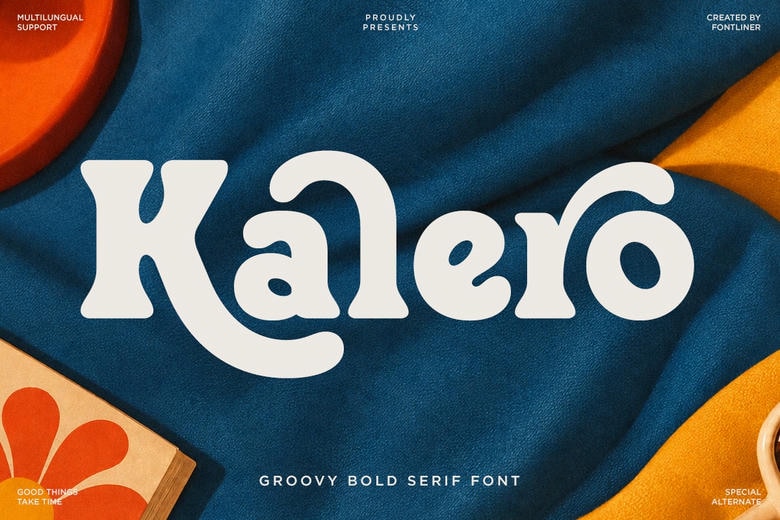
Kalero Font
Kalero is a bold retro serif font with a playful, nostalgic feel that brings personality to modern creative projects. Its chunky letters, smooth curves, and unique serifs give it a vintage style, while still keeping it bold, friendly, and easy to read.
Kalero is great for retro branding, vintage posters, packaging, lifestyle brands, food and drink designs, summer campaigns, travel graphics, social media, logos, headlines, merchandise, and editorial layouts. It really shines in projects inspired by the 70s, groovy styles, retro pop culture, colorful ads, and nostalgic summer themes.
Kalero Groovy Bold Retro Serif Font